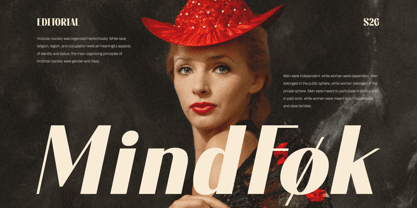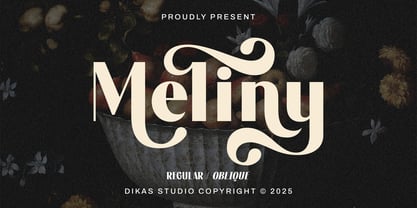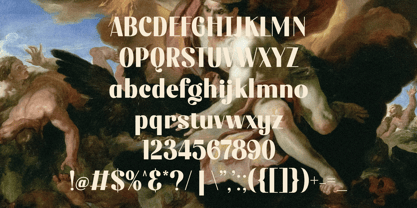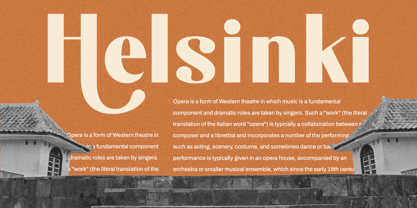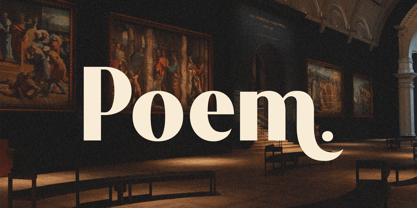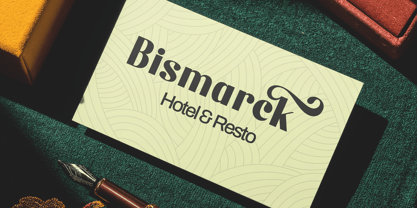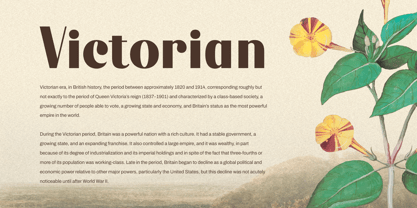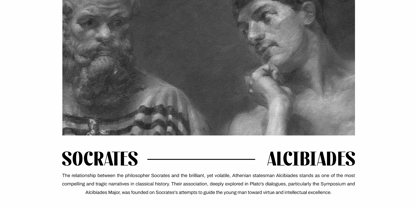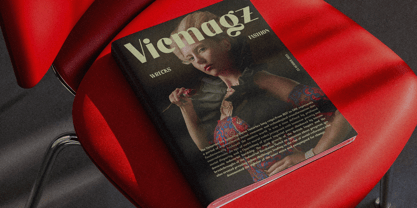
Meliny
by Dikas Studio
The Meliny Font Family was designed by Andika Setiawan and published by Dikas Studio. Meliny contains 2 styles and family package options. More about this family
Meliny is a bold vintage sans serif font that beautifully blends strength and elegance. Its striking contrast and graceful letterforms give every design a timeless charm. With smooth alternates and flowing curves, Meliny brings a refined, handcrafted touch to your work. Perfect for fashion branding, wedding invitations, crafts, and elegant logos, this typeface adds sophistication to any layout. Available in Regular and Oblique styles for versatile design expression.
Designers: Andika Setiawan
Current Foundry: Dikas Studio